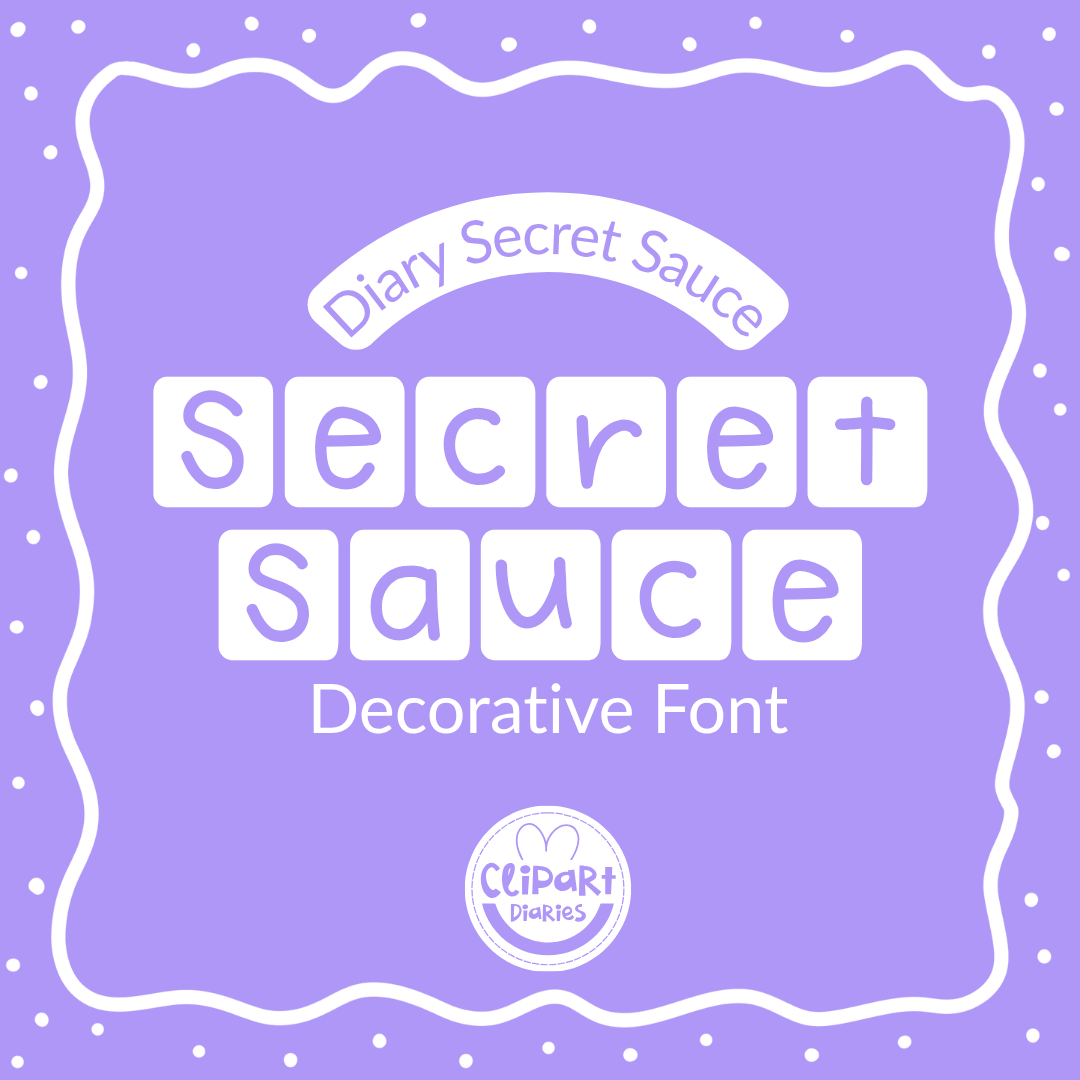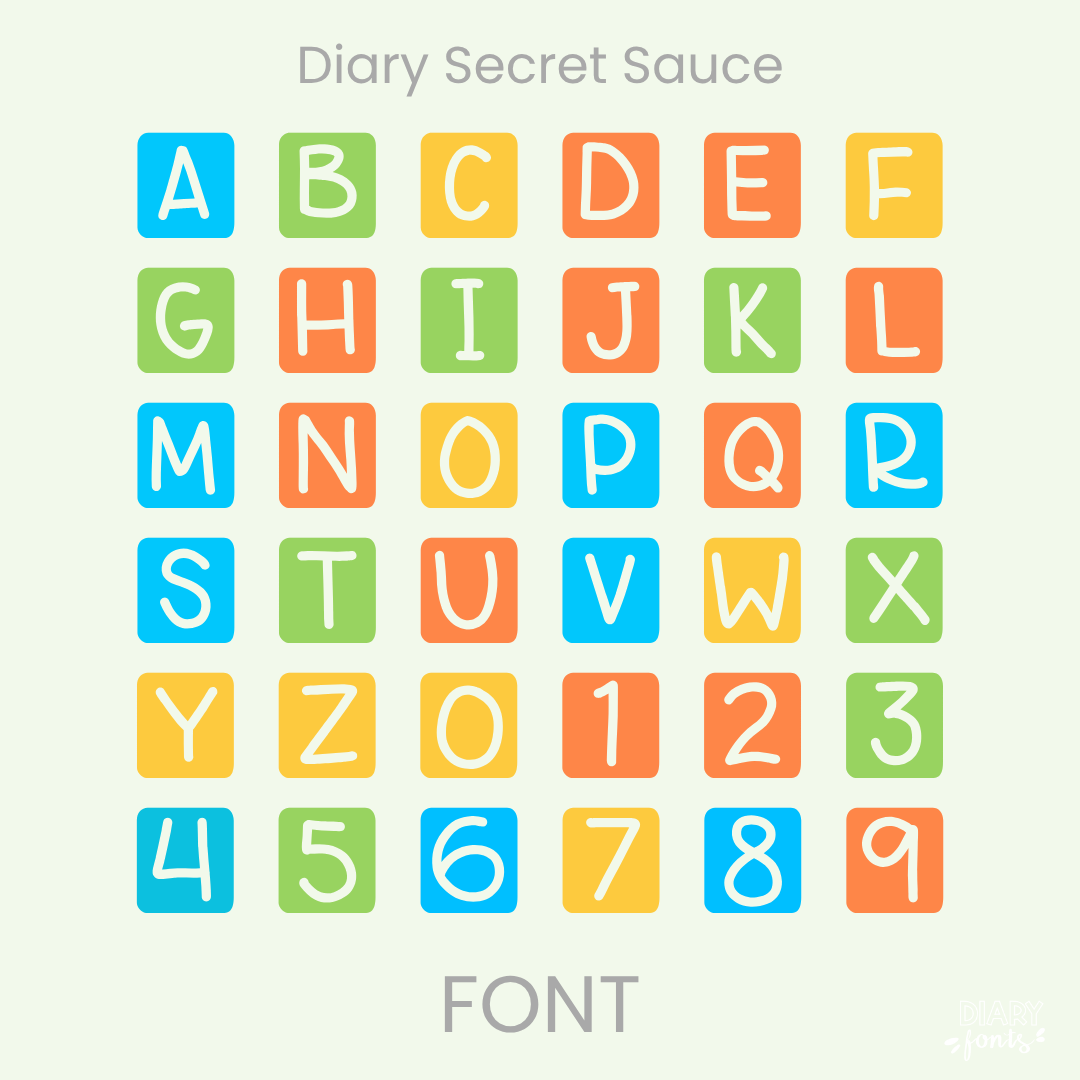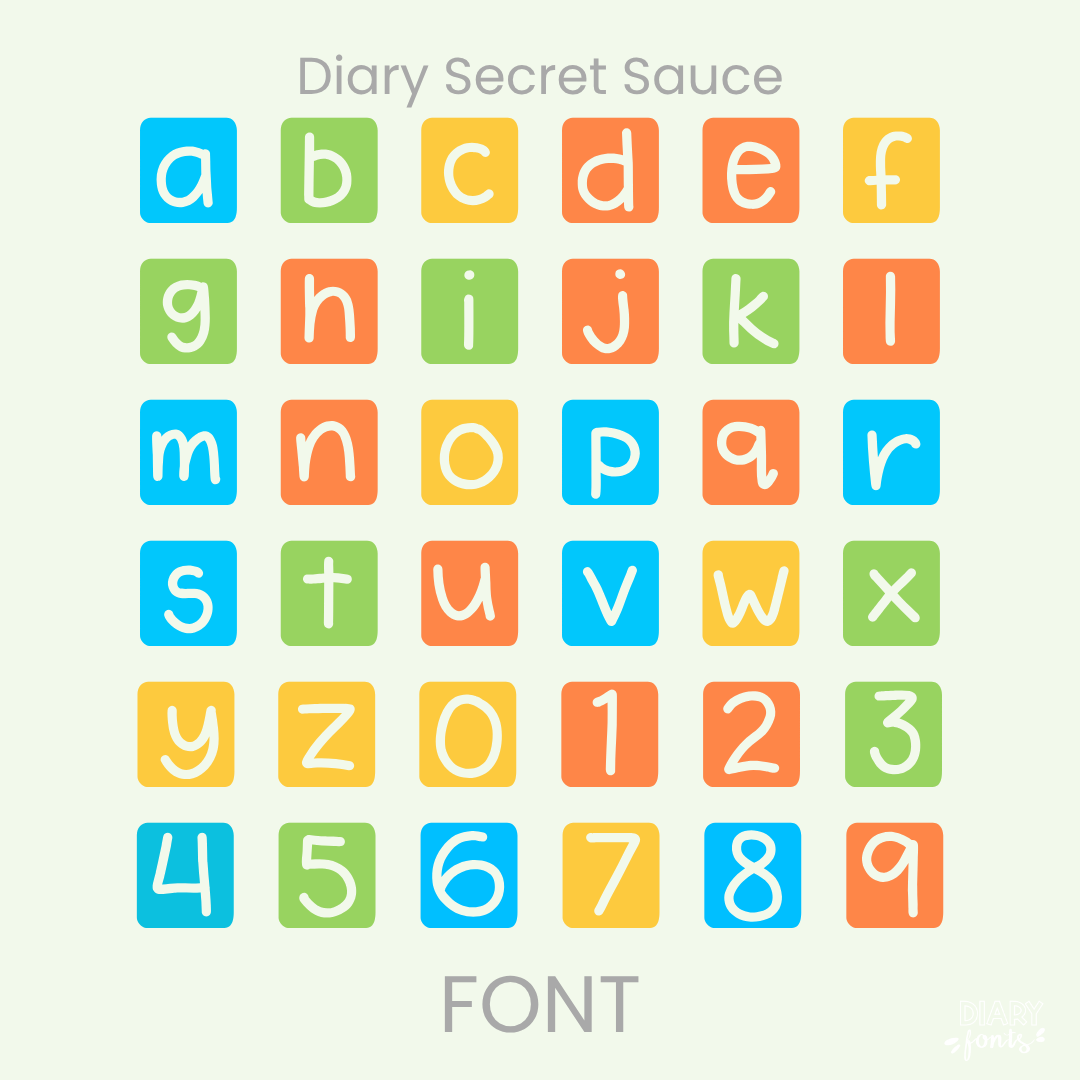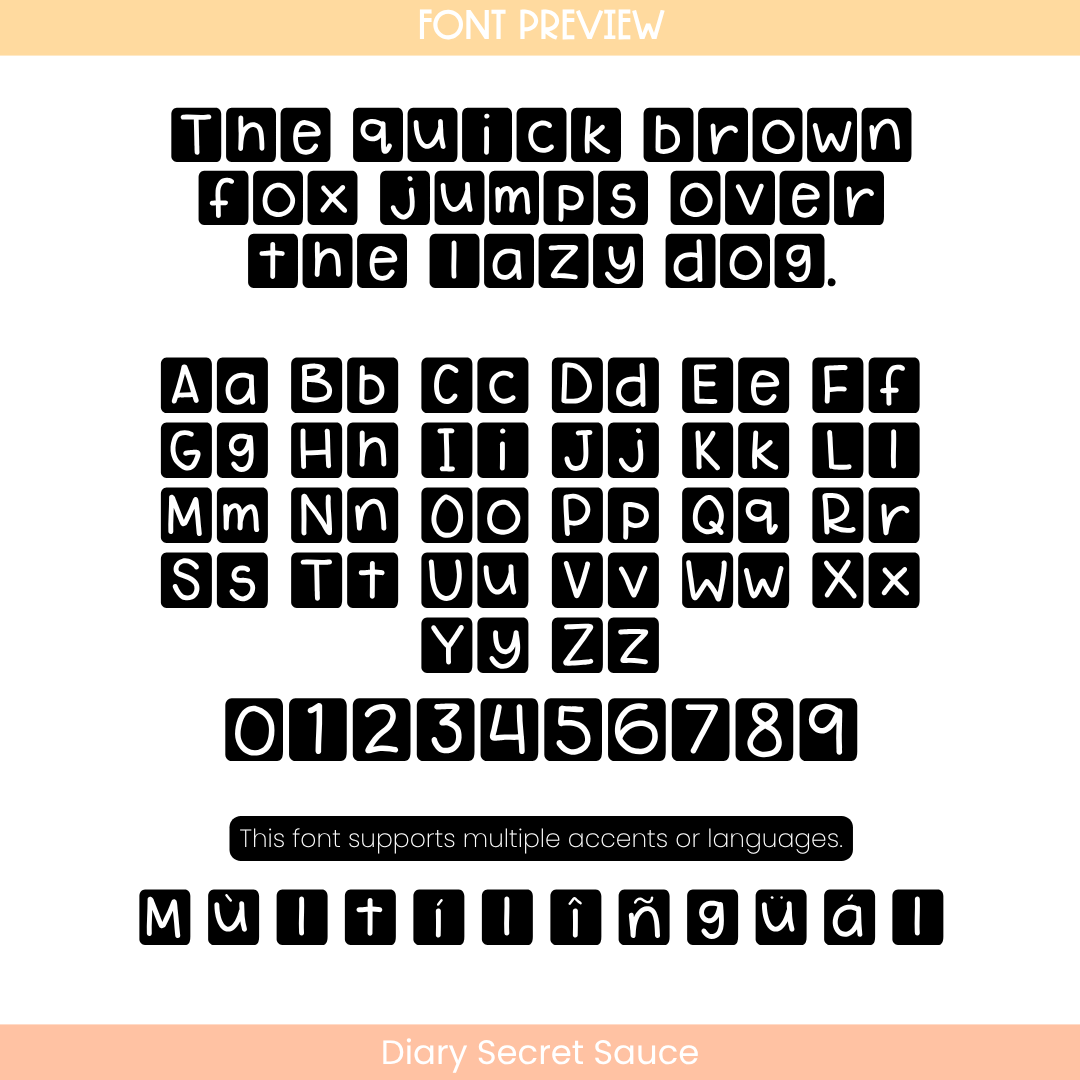
If you’ve been looking for that special design ingredient to make your resources instantly stand out, Diary Secret Sauce is about to become your new best friend. This unique display font features a neat, friendly handwritten print inverted beautifully in white against solid, rounded black blocks. Because each boxed character acts like a mini graphic element all on its own, it completely cuts out the background noise, giving your text massive visual impact while staying incredibly clean and organized.
It is an absolute dream for creating eye-catching bulletin board headers, bold task card numbers, morning meeting presentation titles, and standout classroom door signs where you want a fun, modern vibe. Inside the download, you’ll get a full set of boxed uppercase and lowercase letters, matching numbers, and multi-accent marks for complete multilingual support. It drops right into Canva, MS Office, or Adobe on your desktop, and pairs beautifully with Procreate and GoodNotes on your iPad. Whether you’re prepping daily activities for your own sweet students or designing a fresh new product line for your online teacher shop, this block beauty adds a touch of effortless, confident style to your creative toolkit.